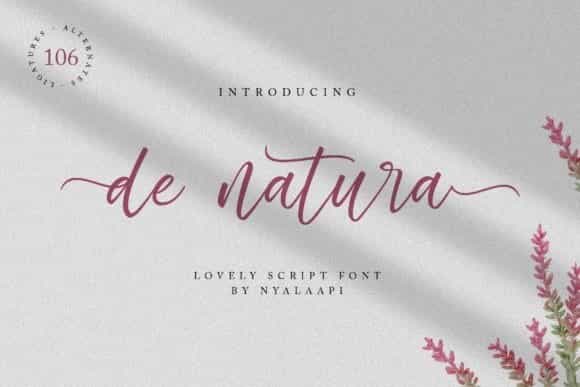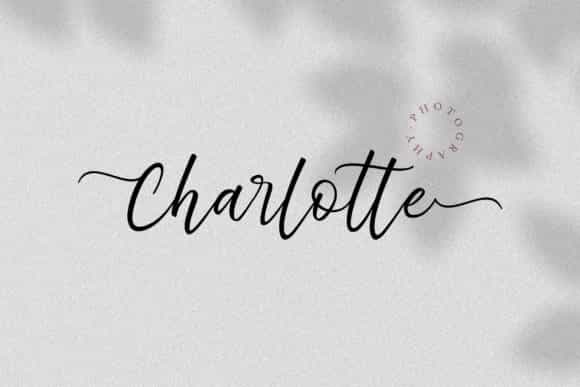
De Natura is a crafted script typeface, with clean and elegant hand lettering. It’s perfect for branding, logos, quotes, product packaging, posters, social media posts, book covers, special events and more.